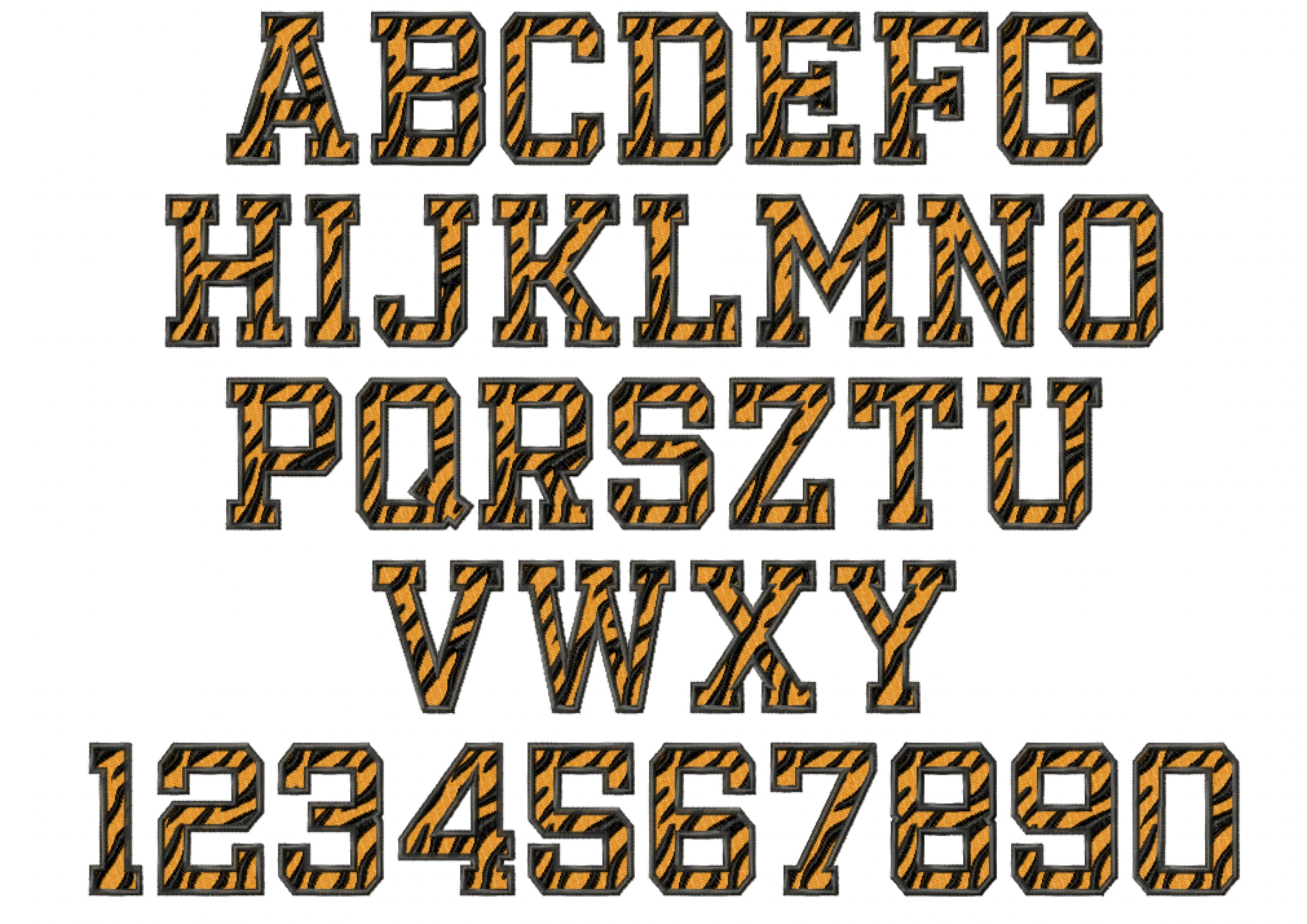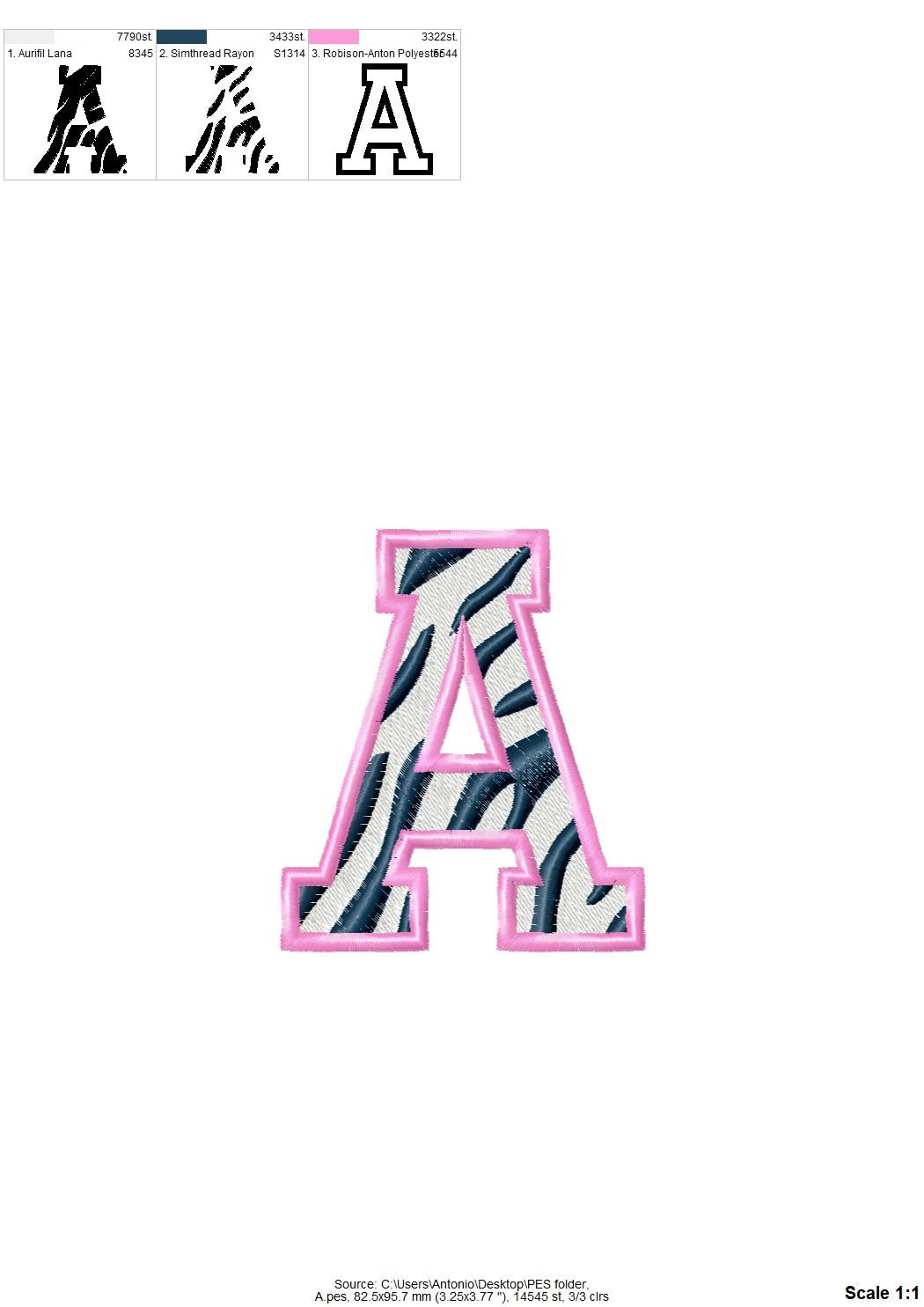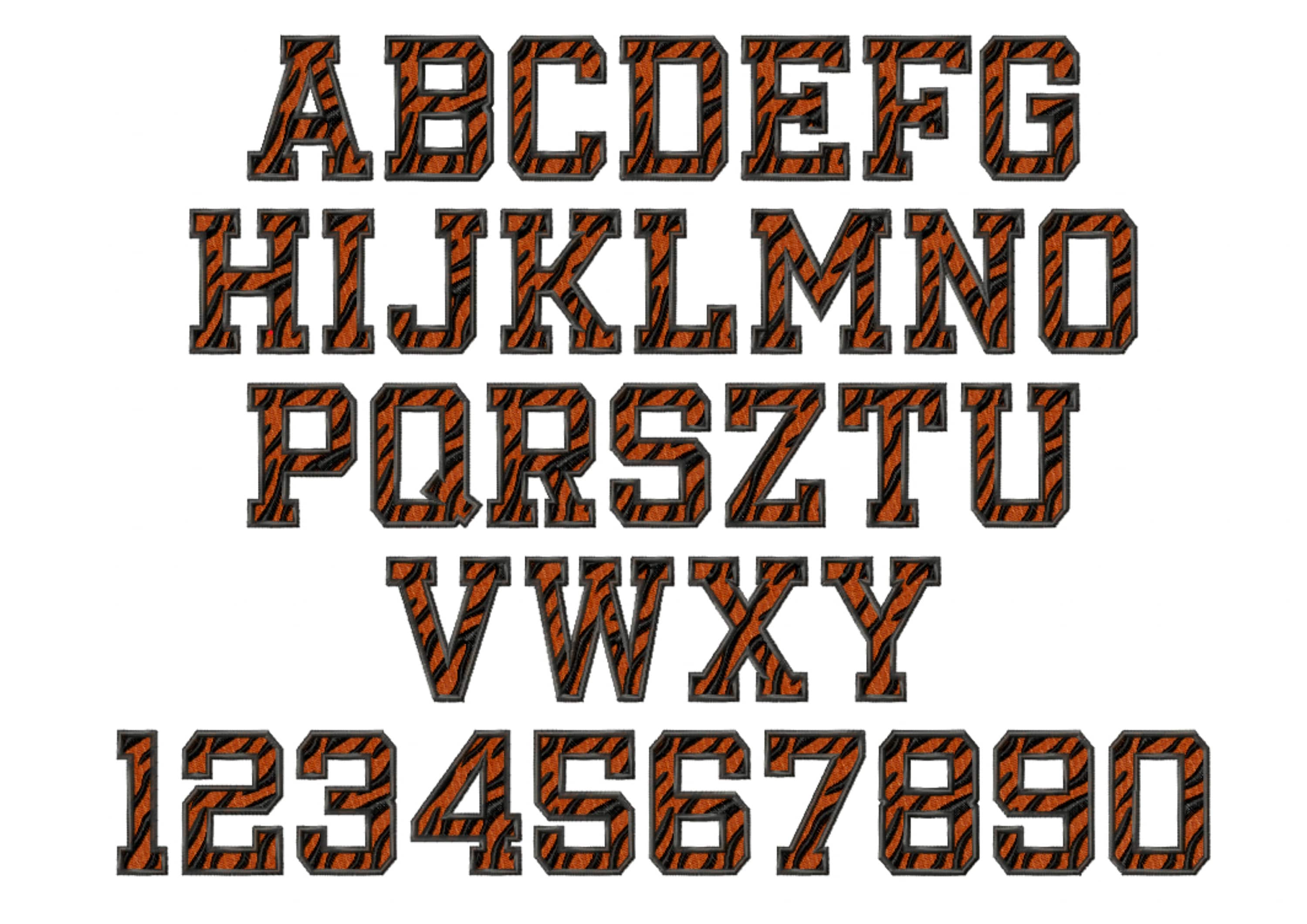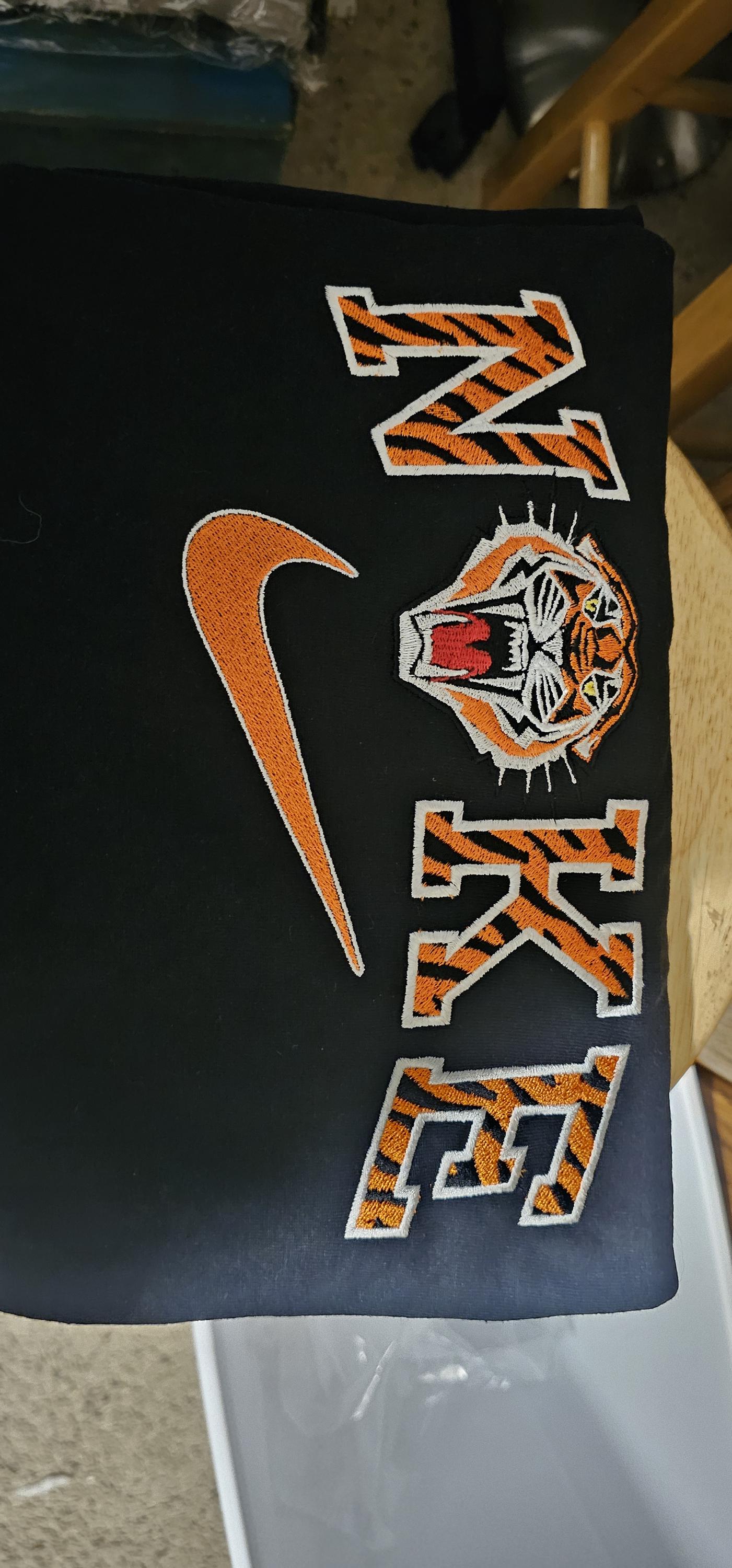
Tiger print embroidery Font machine embroidery designs Tiger Stripes Varsity fill stitch Sport Font assorted sizes 2 up to 4 inches BX font
This is a fill stitch design with 3 colors: a main color, stripes, and an outline.
Entire alphabet: uppercase A-Z, and numbers 0-9.